2 Google Fonts Similar to Lucida Grande
Lucida Grande is a popular sans-serif typeface made popular with it's use through macOS. It is easy to read and is approachable yet professional.
It is due to these reasons that it has become such a popular font.
Below, I cover two fonts that I believe are similar to Lucida Grande.
With that being said, either one of these fonts will make for a good alternative giving you a similar look and feel to Lucida Grande.
What Google Fonts are Similar to Lucida Grande?
The most similar looking font to Lucida Grande that are available in Google Fonts are:
- Varela
- Roboto
Either one of these fonts would make for a good alternative.
So let's cover some things that they have in common and their differences so you can see if this font will work for your project.
Varela
Varela is a modern and clean looking sans-serif. Right off the bat, you will notice that the lowercase is extremely similar. I would argue that it matches close to 95%.
If you pay close attention, you will notice a minor difference in the "a" and "h".
The uppercase is also a good match even though it also have a few differences too.
If you examine close enough, you will see that the main differences are in the "Q", "G", and "J".
Overall, it would make a pretty solid alternate font.
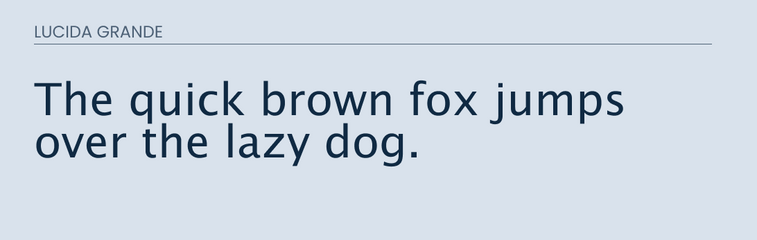
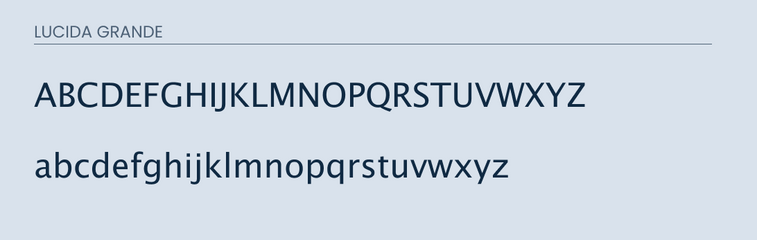
Roboto
Roboto is another very popular sans-serif font available in the Google Fonts library. It also is a close match for both upper and lowercase.
The main difference in the lowercase is the "a". In Lucida Grande, it features more of a curved back while in Roboto it is more rounded.
The uppercase does a great job matching, but you will notice some differences in the "J", "Q", and "G".
Final Thoughts
Varela is going to be your best bet in finding a good alternative for Lucida Grande. It features many similarities with few differences. If Varela doesn't work for you then Roboto would be a good secondary option.